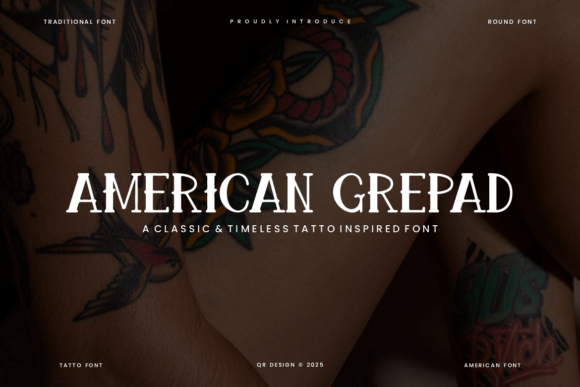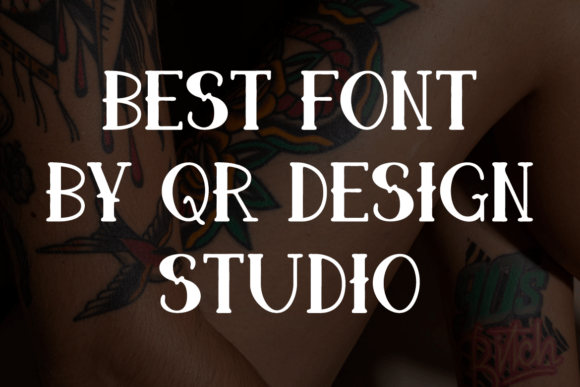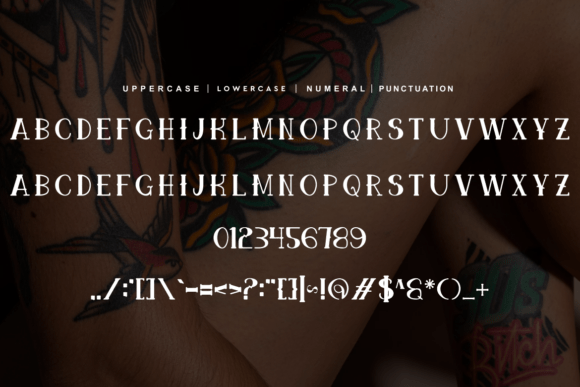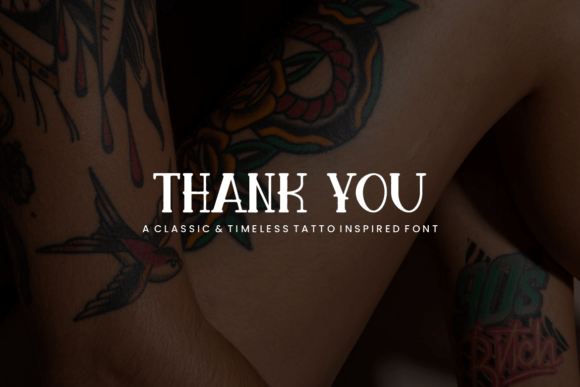
Discover the Elegance of American Grepad Font: Elevate Your Designs with Versatility
Are you on the hunt for a font that exudes elegance, sophistication, and versatility? Look no further than the American Grepad Font. This stunning serif font is making waves in the design community, and for good reason. With its bold yet refined aesthetic, American Grepad is the perfect choice for designers and crafters looking to add a touch of luxury to their projects.
The Characteristics of American Grepad Font
American Grepad is an elegant and bold serif font that boasts an incredibly versatile style. Its unique blend of classic and modern elements makes it suitable for a wide range of applications, from traditional wedding invitations to modern social media posts. The font’s serif details add a touch of sophistication, while its bold lines ensure that your message is conveyed with confidence.
Endless Design Possibilities with American Grepad
One of the standout features of American Grepad is its incredible versatility. This font can be used to create a wide range of designs, including:
- Wedding Invitations: Create stunning wedding invitations that set the tone for a luxurious and unforgettable celebration.
- Stationary Art: Add a touch of elegance to your stationery with American Grepad’s beautiful, flowing lines.
- Social Media Posts: Make your social media posts stand out from the crowd with American Grepad’s bold and eye-catching style.
- Logos and Branding: Use American Grepad to create a strong and memorable brand identity that exudes sophistication and luxury.
Why Designers and Crafters Love American Grepad
So, why are designers and crafters falling in love with American Grepad? Here are just a few reasons:
- Unique Style: American Grepad’s unique blend of classic and modern elements makes it a standout font that will set your designs apart from the crowd.
- Ease of Use: This font is incredibly easy to use, making it perfect for designers and crafters of all skill levels.
- Versatility: American Grepad can be used for a wide range of applications, making it a valuable addition to any designer’s toolkit.
Tips for Getting the Most Out of American Grepad
To get the most out of American Grepad, here are a few tips to keep in mind:
- Experiment with Different Sizes: American Grepad looks great in a variety of sizes, so don’t be afraid to experiment to find the perfect fit for your design.
- Pair with Other Fonts: Try pairing American Grepad with other fonts to create a unique and eye-catching design.
- Use in Combination with Images: American Grepad looks great in combination with images, so consider using it to add a touch of elegance to your visual designs.
In conclusion, American Grepad is a stunning serif font that offers a unique blend of elegance, sophistication, and versatility. With its bold yet refined aesthetic, this font is perfect for designers and crafters looking to add a touch of luxury to their projects. Whether you’re creating wedding invitations, stationary art, social media posts, or logos and branding, American Grepad is the perfect choice. So why wait? Fall in love with American Grepad today and take your designs to the next level!